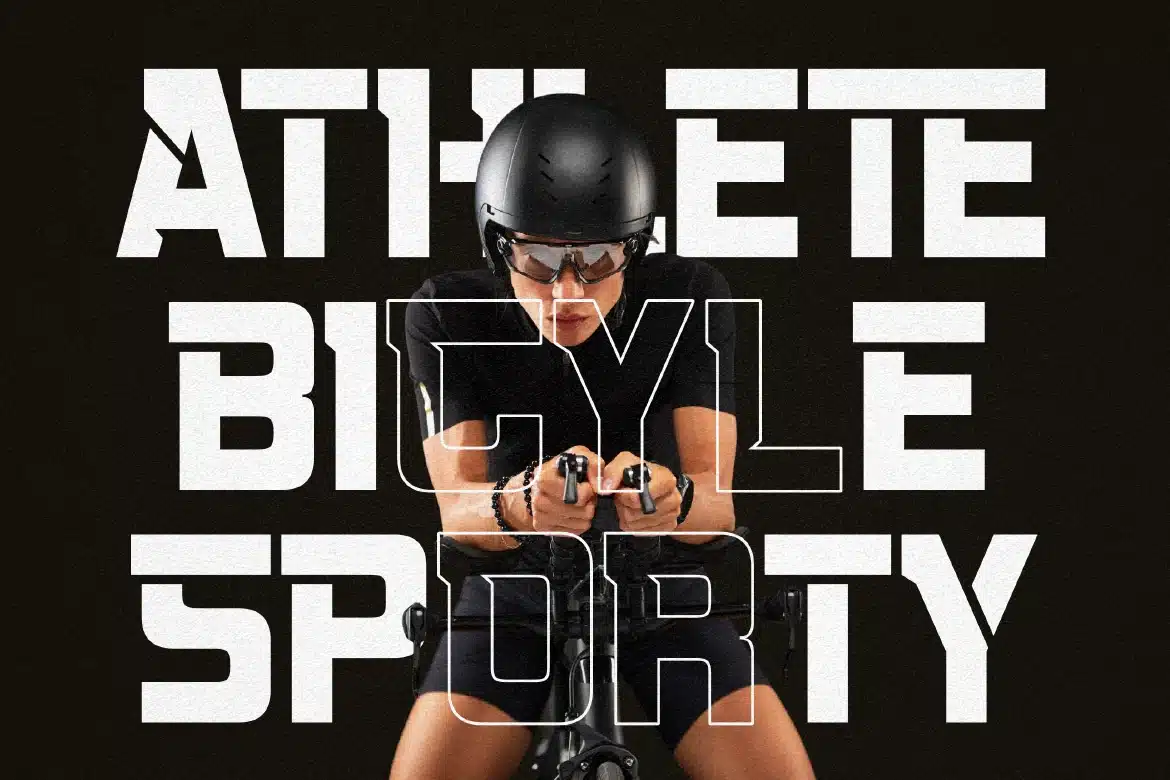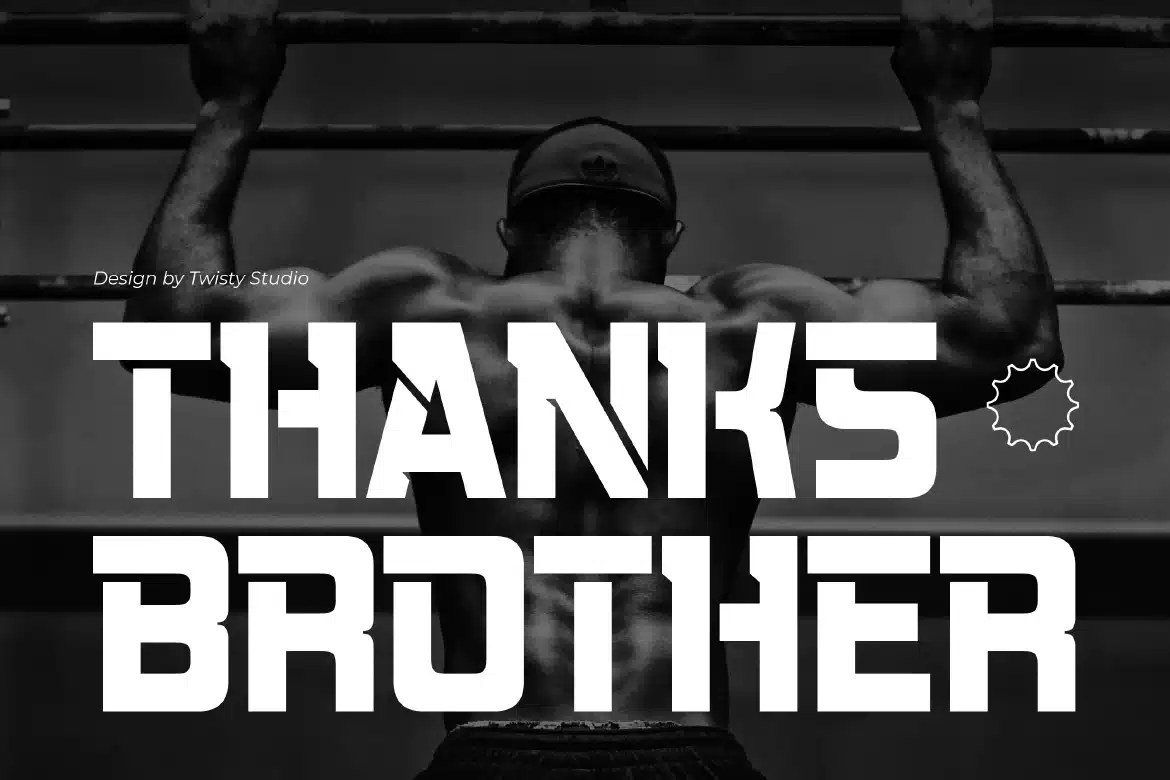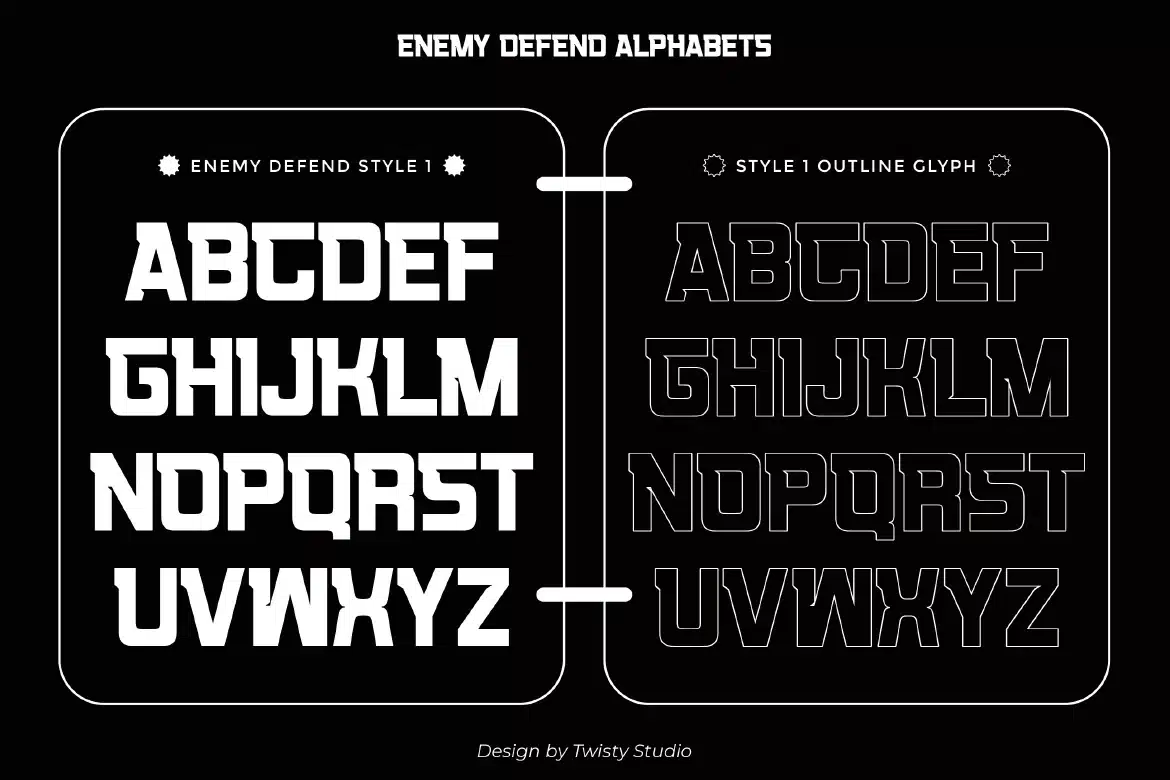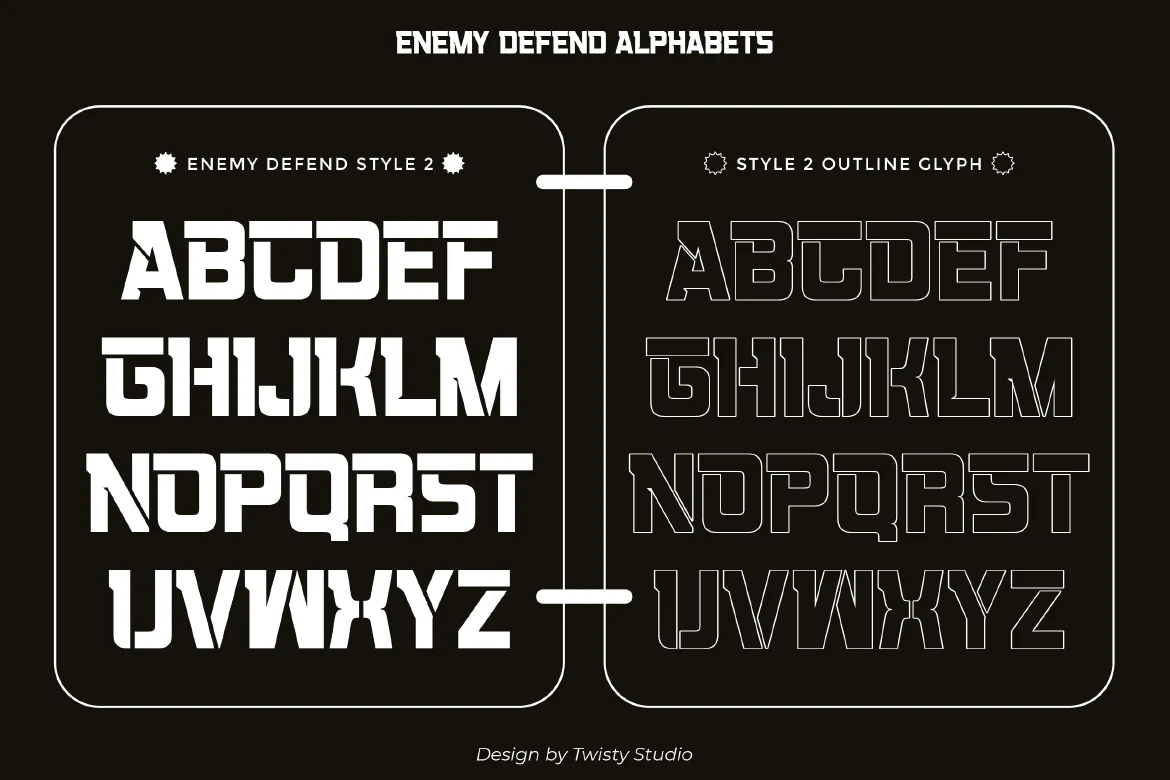
Modern Sport Display Font – Enemy Defend
Enemy Defend is a modern sport display font designed to project strength, resilience, and competitive energy. With its bold construction, sharp cuts, and assertive letterforms, this typeface creates a commanding presence that feels both powerful and dynamic. Inspired by the intensity of sports and action-driven visuals, Enemy Defend brings a sense of motion and determination into every composition. Its structured yet aggressive style makes it highly effective for grabbing attention while maintaining a clean and controlled appearance.
Who Should Use Enemy Defend?
Enemy Defend is perfect for designers and brands looking for a strong and energetic typeface. Itβs especially suited for projects that require a bold, competitive, and action-oriented visual style.
Sports and team branding
Esports and gaming design
Fitness and training visuals
Action-themed graphics
Posters and promotional materials
Packaging brand design
Social media campaigns
High-impact typography